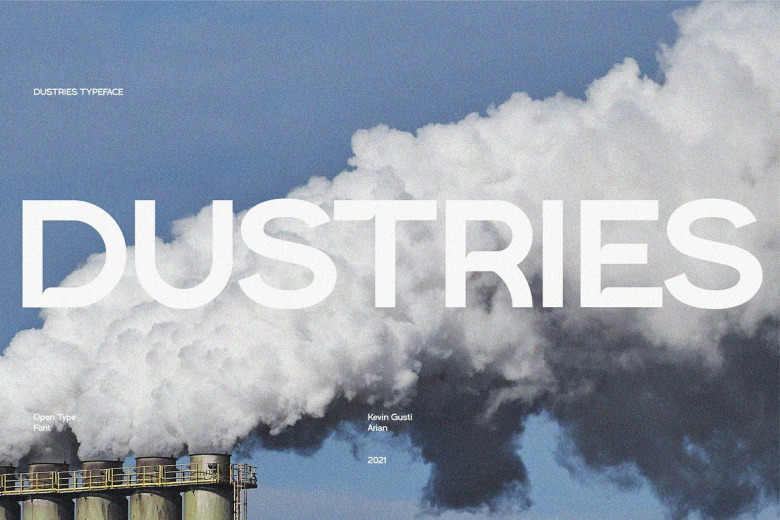
Dustries Font
Dustries is a modern sans serif font created by kevgusar with a strong personality, perfect for Headlines, Headers & Elegant titles, custom logotype designs and more.
Dustries is perfect for branding projects, home-ware designs, product packaging, magazine headers – or simply as a stylish text overlay to any background image.
Dustries Sans Serif Font